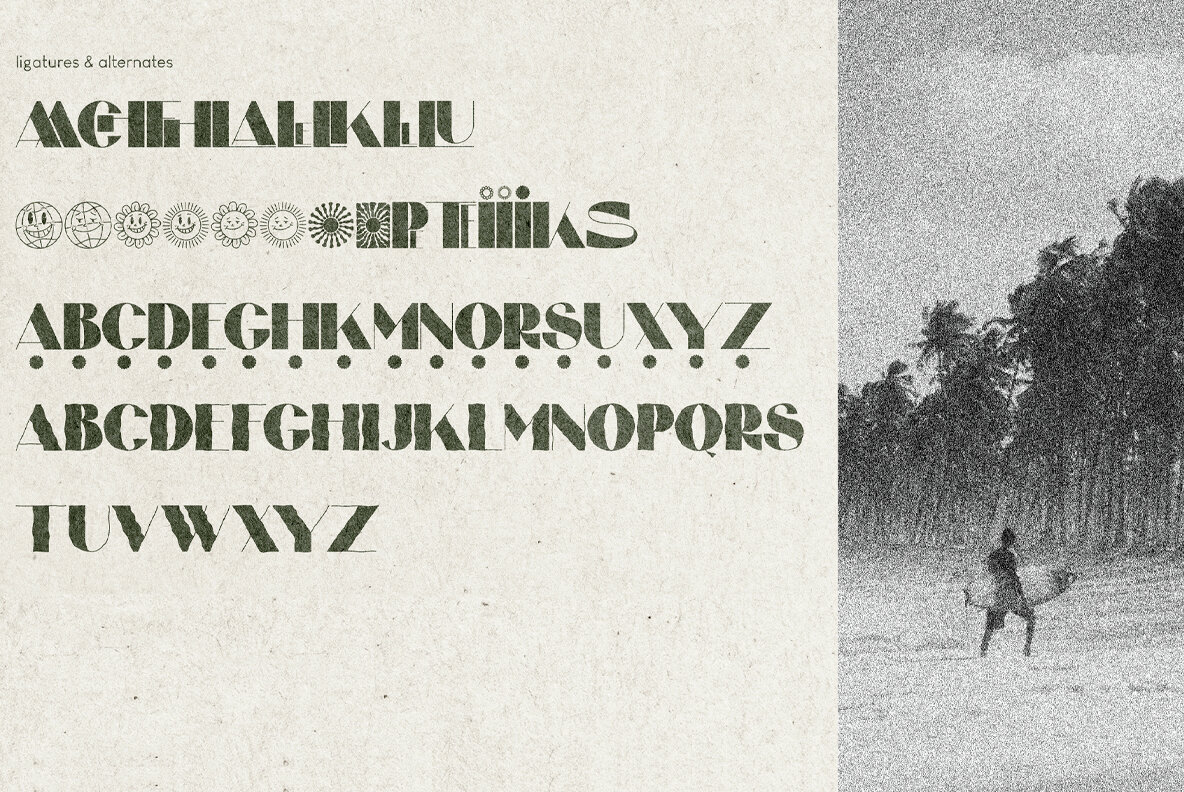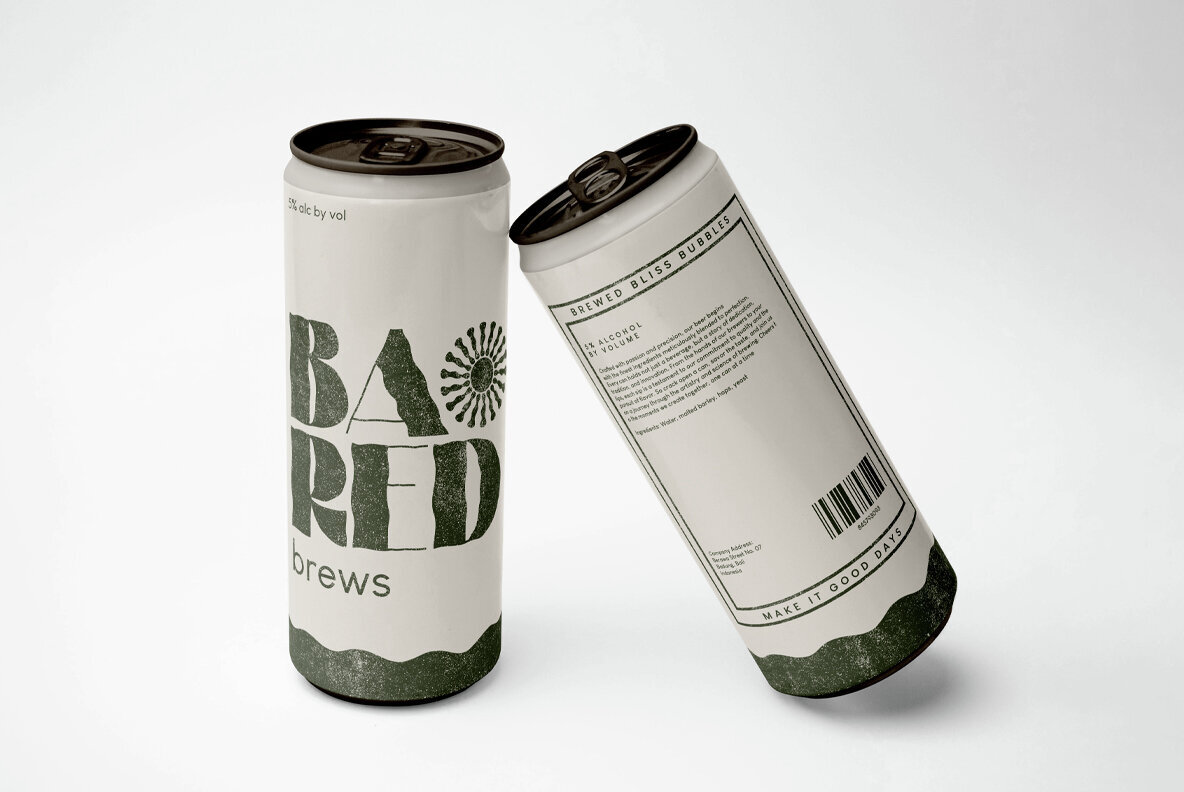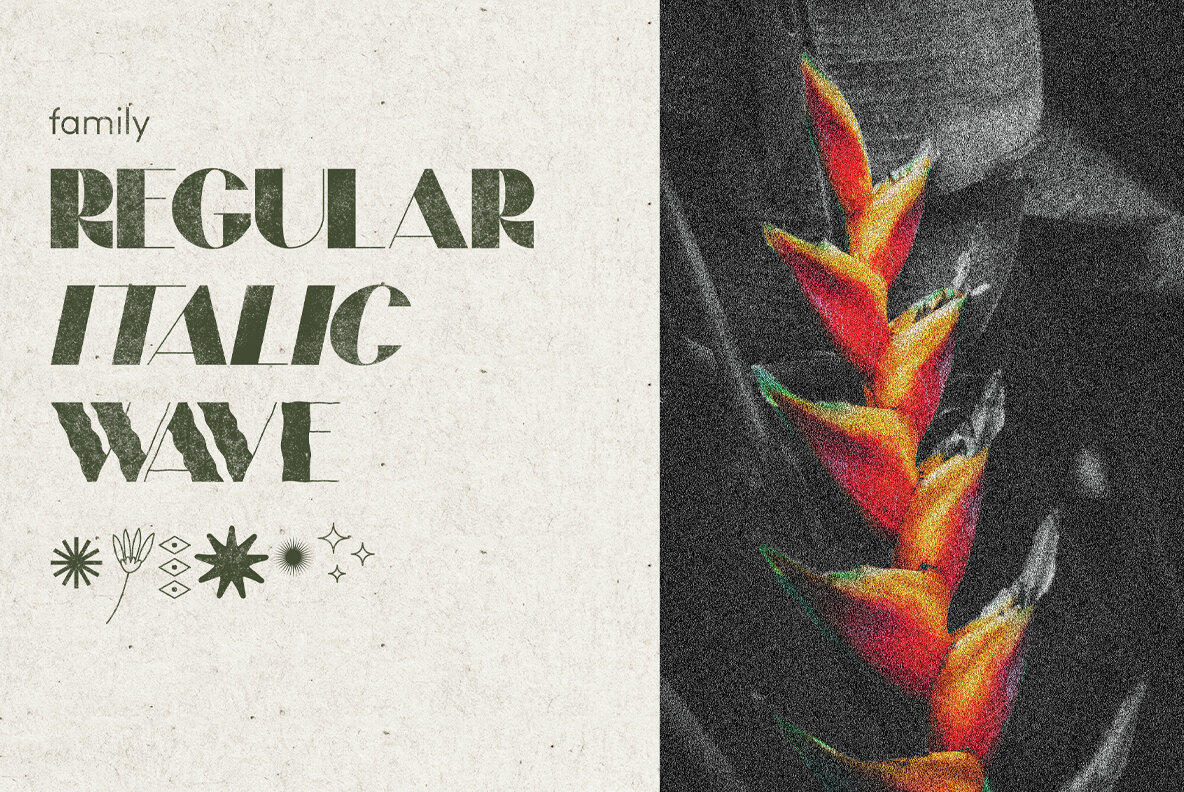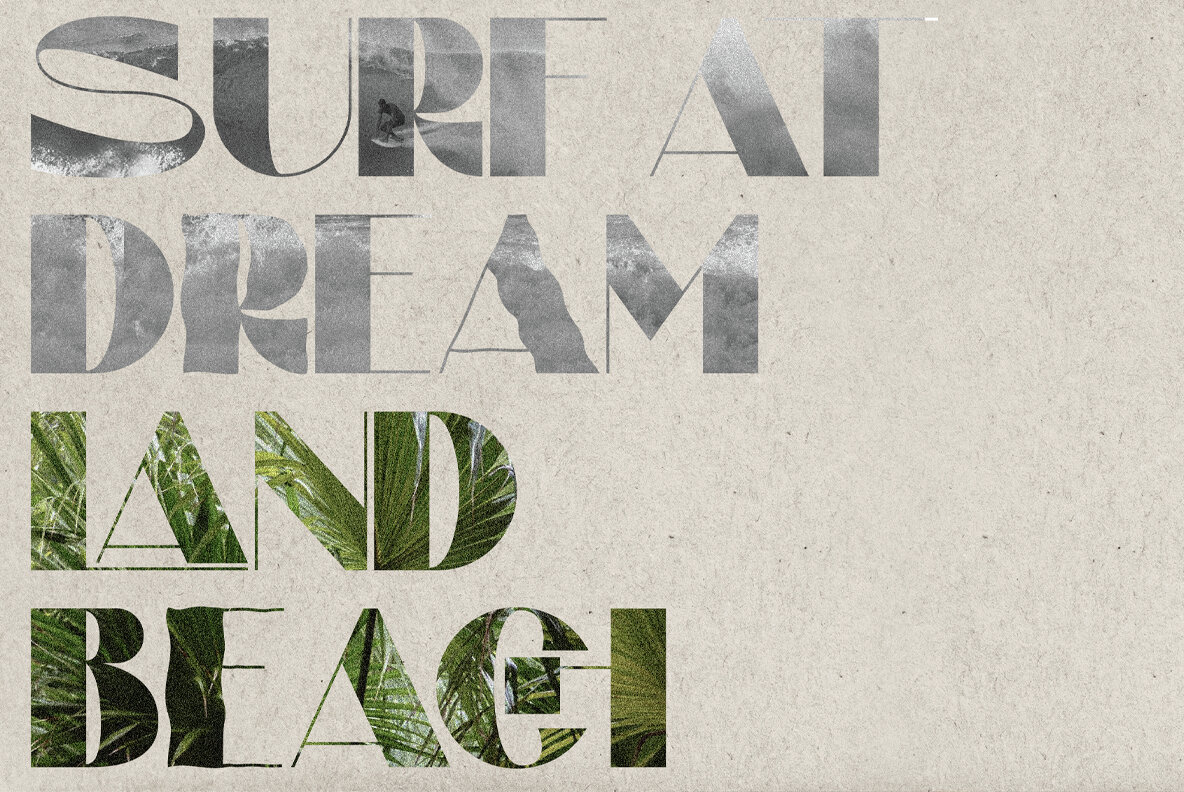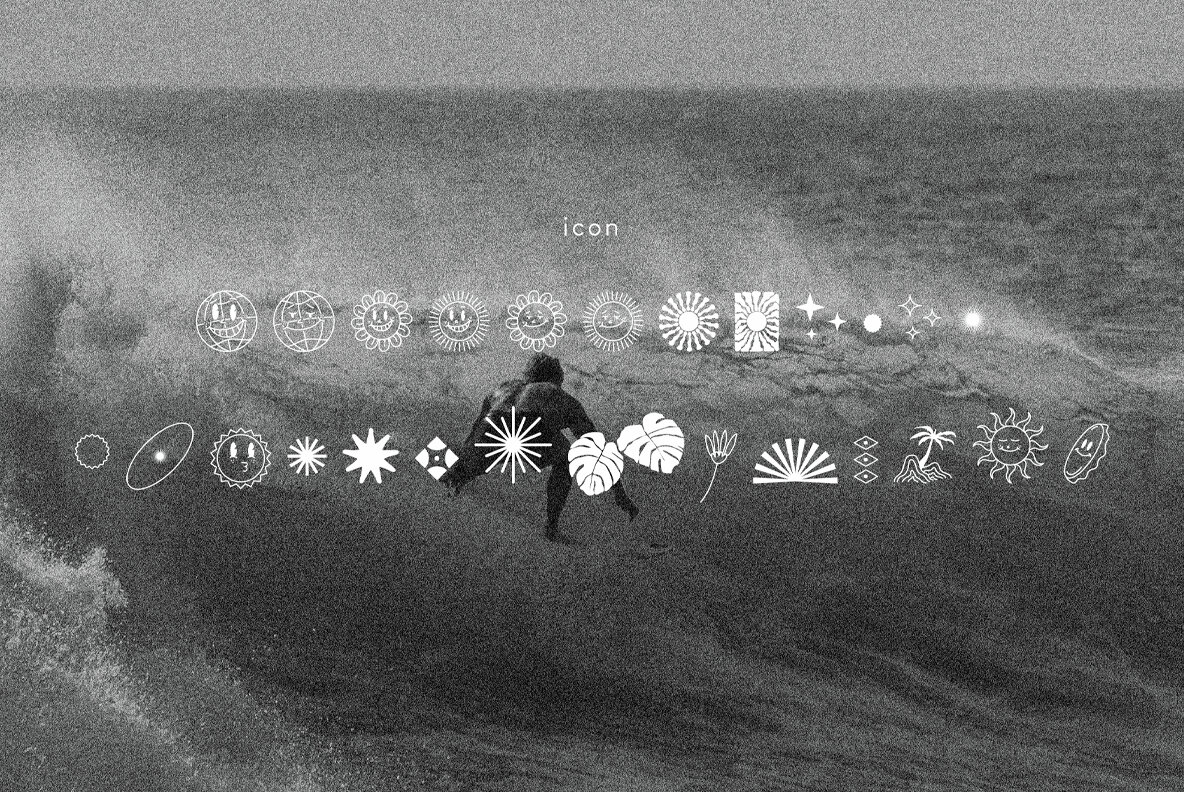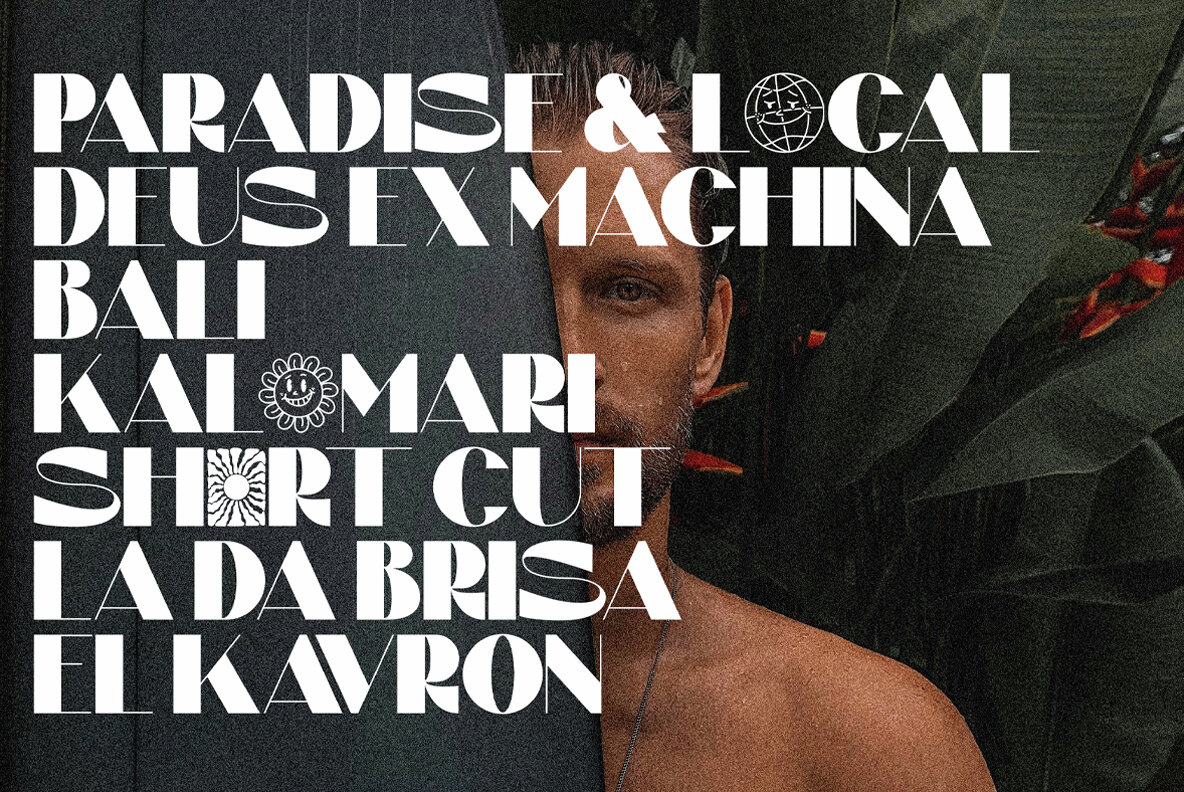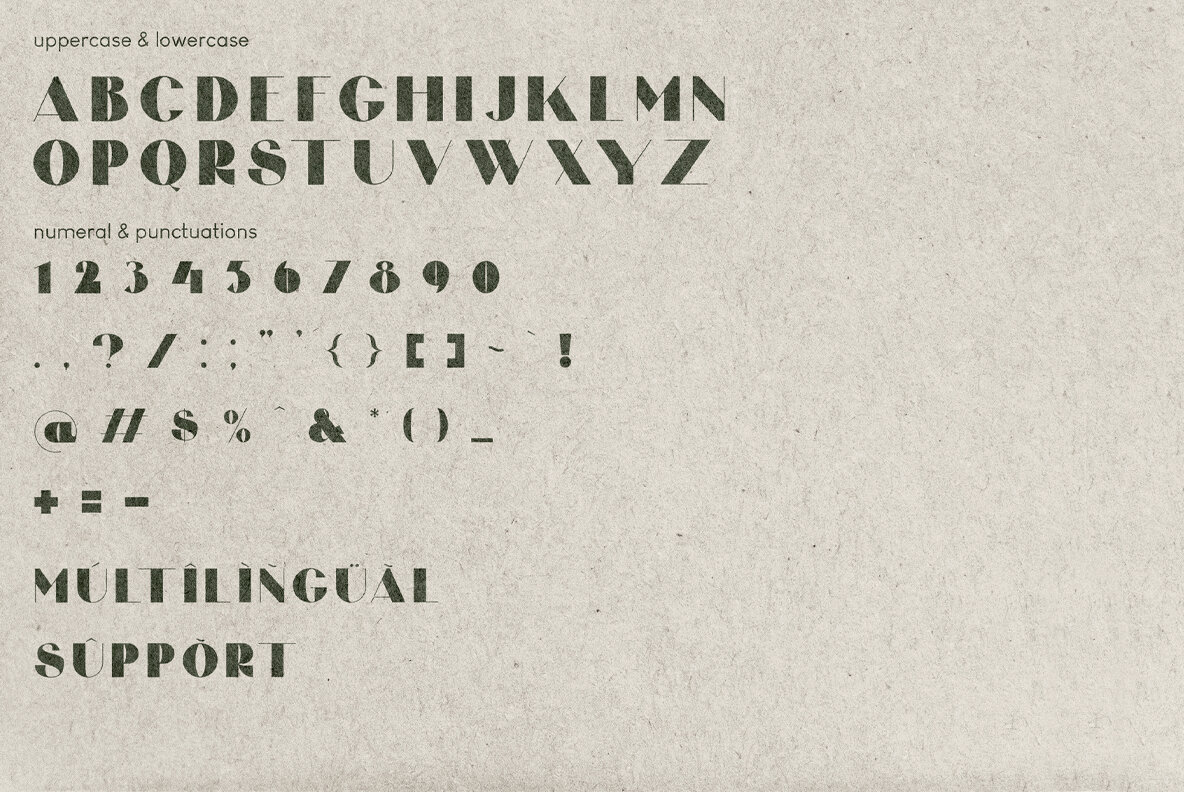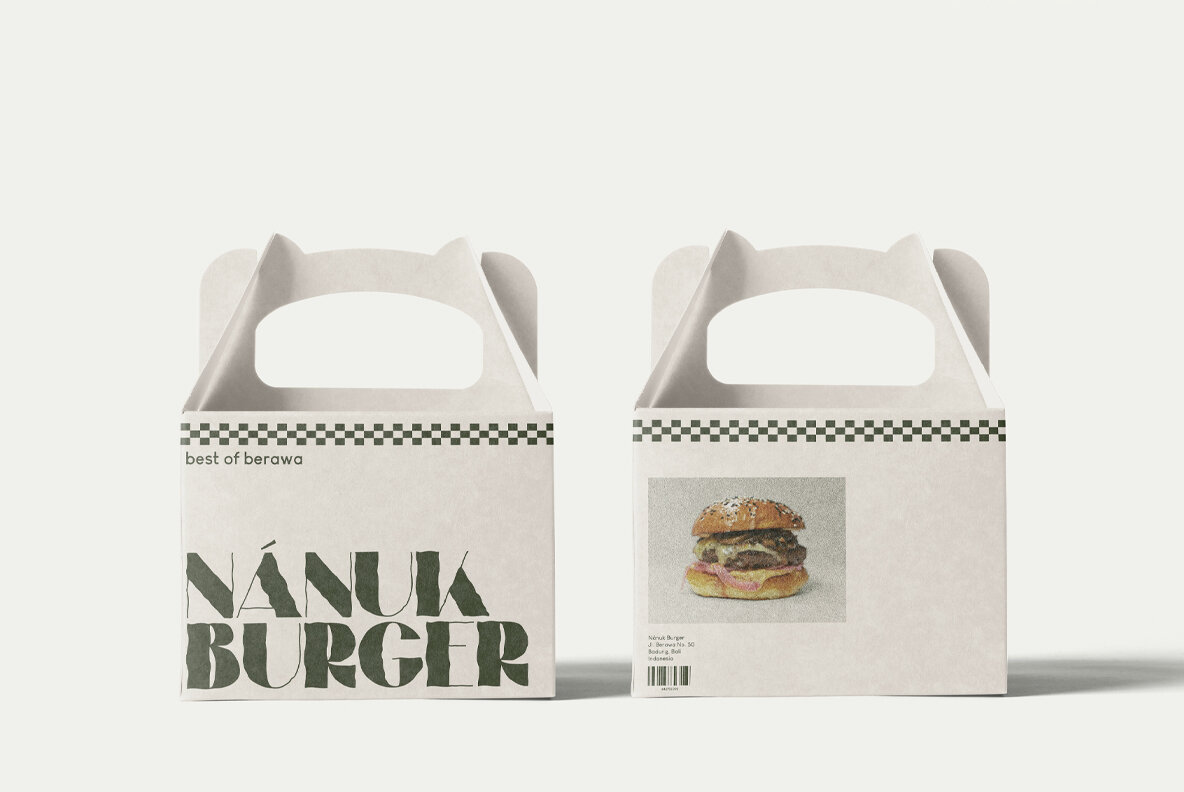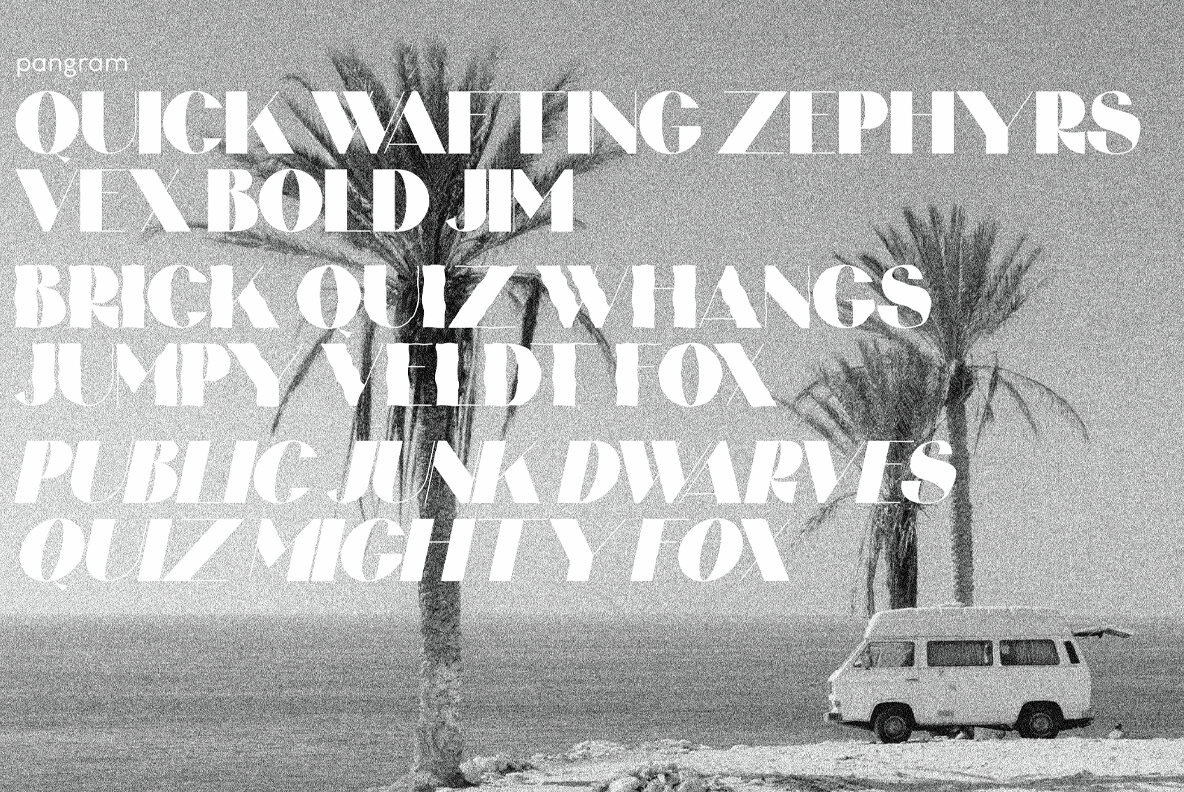
Balirod Font
Escape to a world of warmth and fun with BARILOD Bold Sans Serif Bold Font. Inspired by tropical vibes, it brings cozy charm to your designs. With bold strokes and playful curves, it's like a vacation for your text perfect for posters, branding, and social media. But BARILOD Bold isn't just laid-back; it's ready to party! Ideal for festivals and celebrations, it adds an exciting twist to your projects. Versatile and captivating, it adapts seamlessly to any design need. Embrace the joy of tropical typography download BARILOD Bold now and let your creativity bloom in paradise! Complete with ligatures alternates regular wave italic icon kerning multilingual support